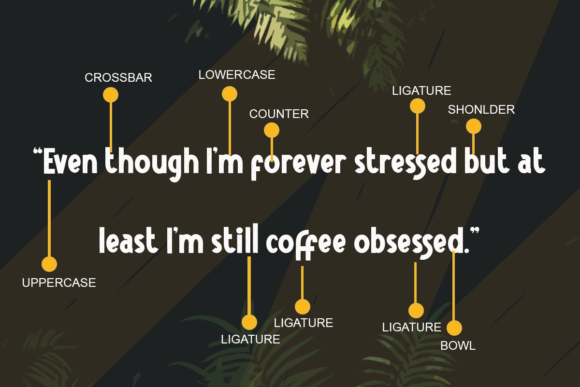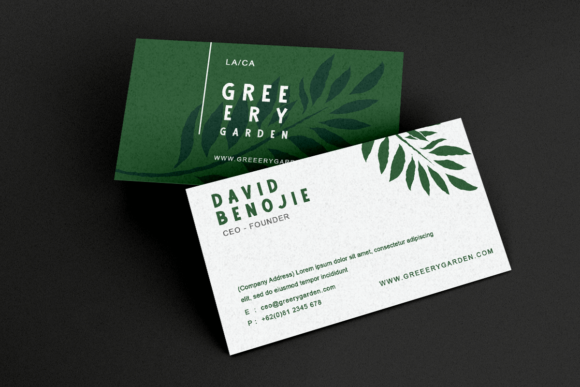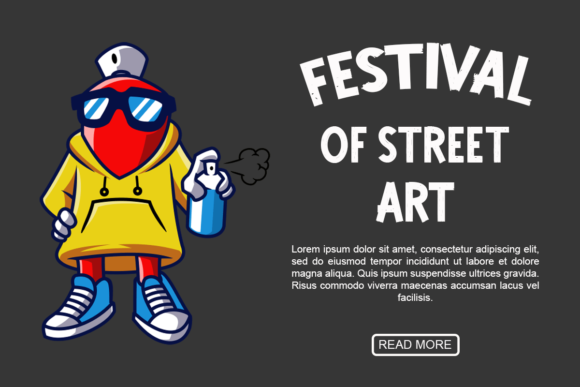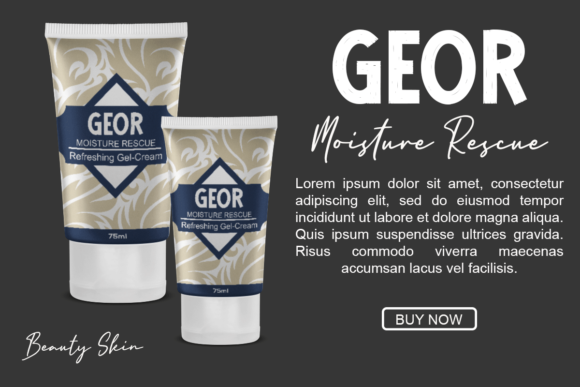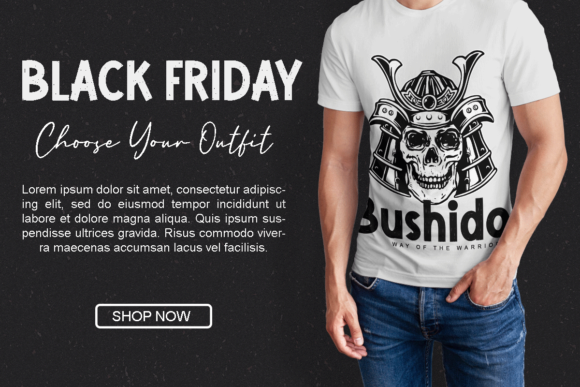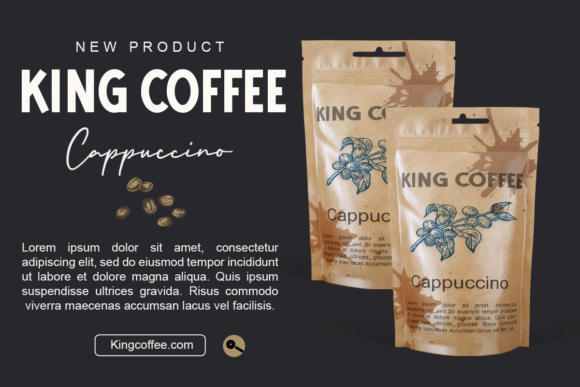
Introduction to Puny Font
Do you remember that moment when you stumbled upon the perfect design resource and your creative project just came alive? For designers, finding the right font can be a game-changer. It’s the difference between a good design and a spectacular one. Recently, I fell in love with the Puny Font, a cool, thick lettered and organic looking display font that has taken my designs to the next level.
With its distinct and well-balanced letters, the Puny Font is a masterpiece that adds a touch of elegance to any design. Its incredibly versatile style makes it perfect for a wide range of creative projects, from graphic design to digital art. Whether you’re working on a high-quality brochure or a creative campaign, the Puny Font is an excellent choice that will surely impress.
Key Features of Puny Font
- Puny Font is designed to be highly legible, even at small font sizes, making it ideal for various creative projects.
- This unique font is perfect for designers looking for a creative and eye-catching design element for their next project.
Honest Review: Puny Font
I recently stumbled upon Puny Font, a creative project that caught my attention. The font itself is quirky and fun, perfect for adding a touch of whimsy to any design. One of the standout features of Puny Font is its transparent background, which makes it incredibly versatile for use in various design applications.
- ✨ High quality design: Puny Font is meticulously crafted, resulting in a crisp and clean appearance.
- ✨ Unique style: The font’s quirky nature makes it perfect for adding a creative twist to any project.
- ⚠️ Limited character set: Puny Font is not suitable for projects requiring extensive typing.
- ⚠️ Not ideal for formal designs: The font’s playful nature may not be suitable for formal or professional projects.
Overall, Puny Font is a great addition to any designer’s toolkit. While it may have some limitations, its unique style and high quality design make it a valuable resource for creative projects. If you’re looking for a fun and quirky font to add some personality to your designs, Puny Font is definitely worth checking out.
Puny Font
Tips for Getting the Most Out of Puny Font
Here are a few tips for getting the most out of Puny Font:
- Use it sparingly to add a touch of whimsy to your designs.
- Combine it with other fonts for a unique and creative look.
- Experiment with different font sizes and colors to find the perfect combination.
Puny Font is perfect for:
- Designing social media graphics
- Designing print materials, such as business cards and brochures